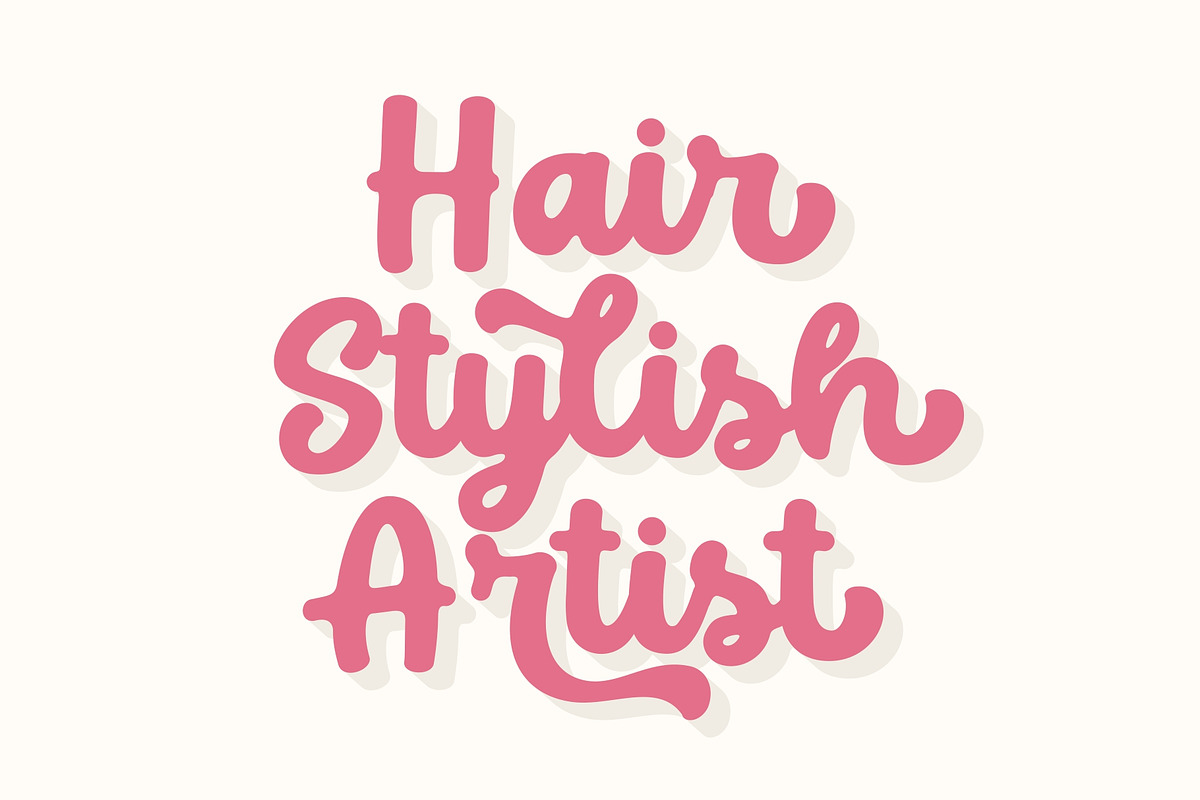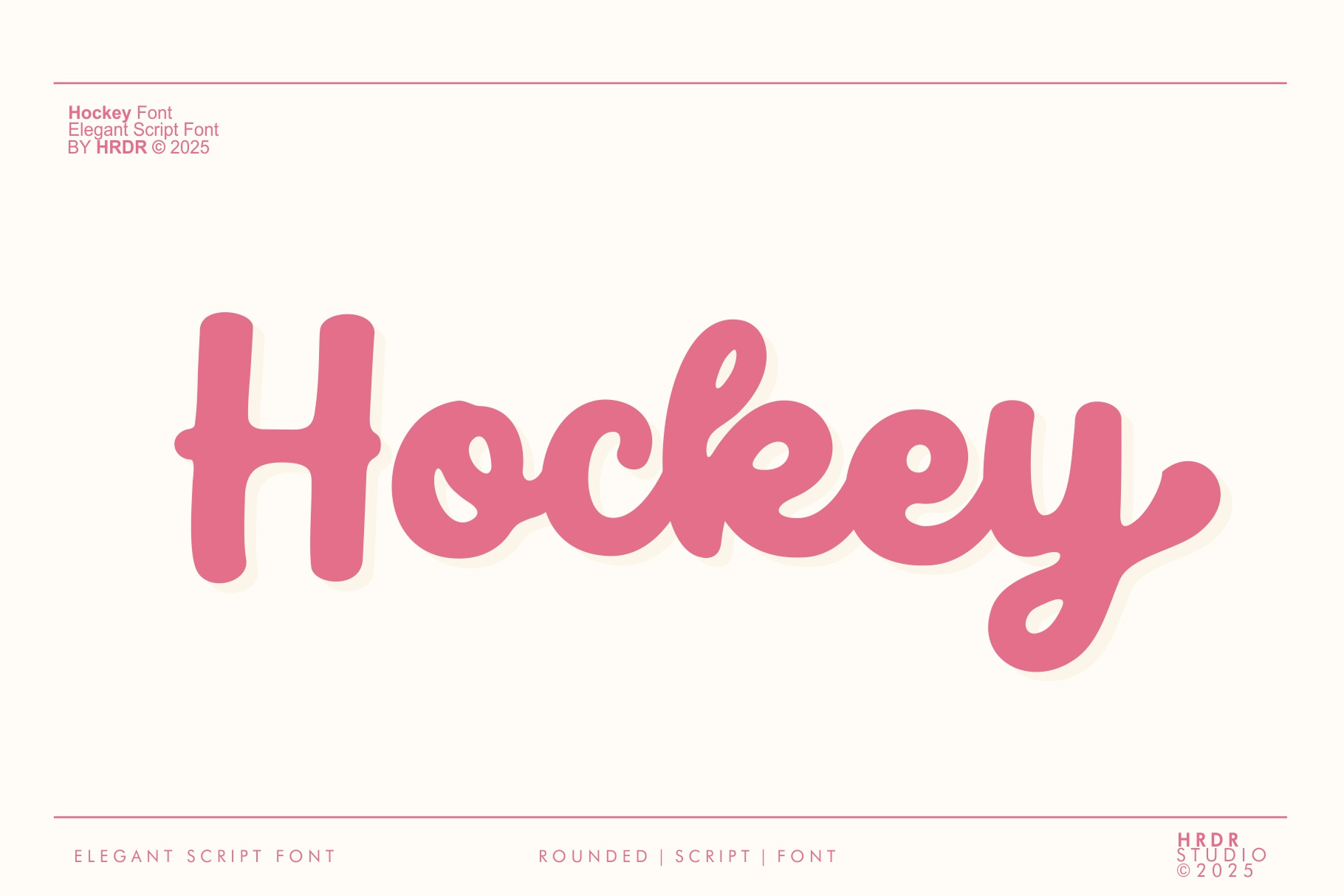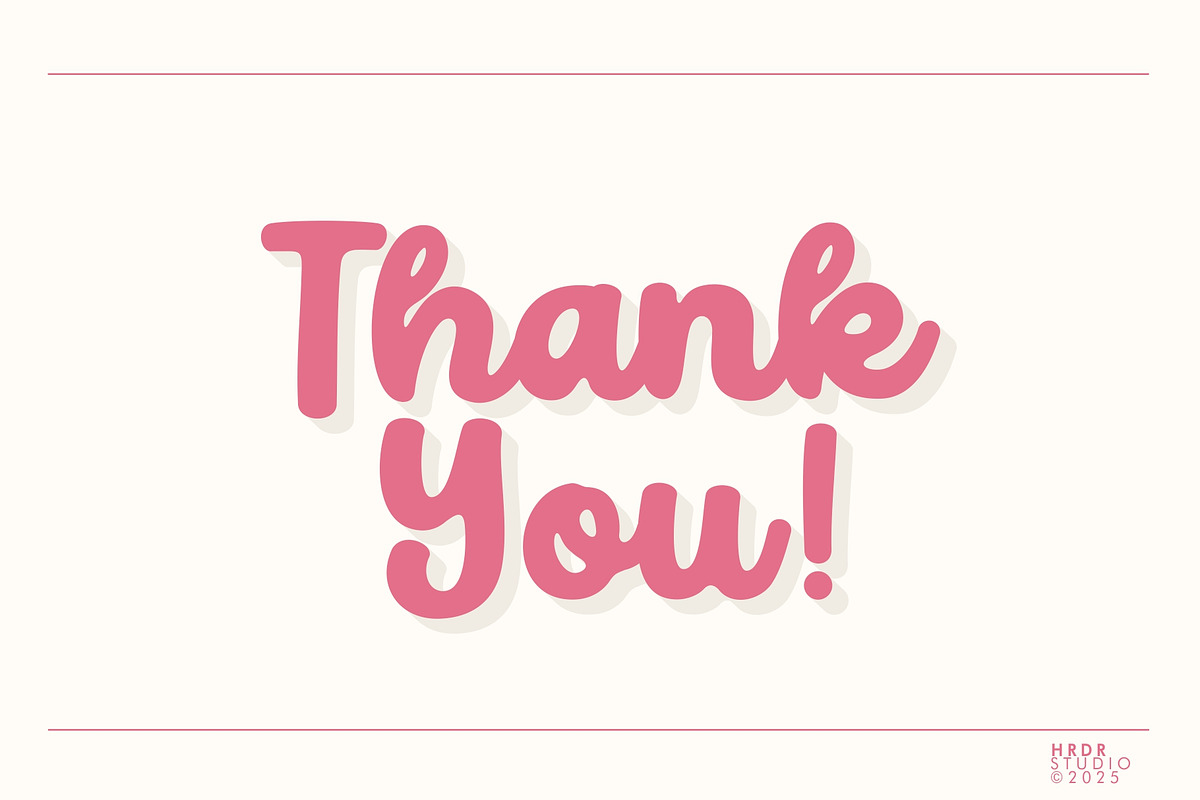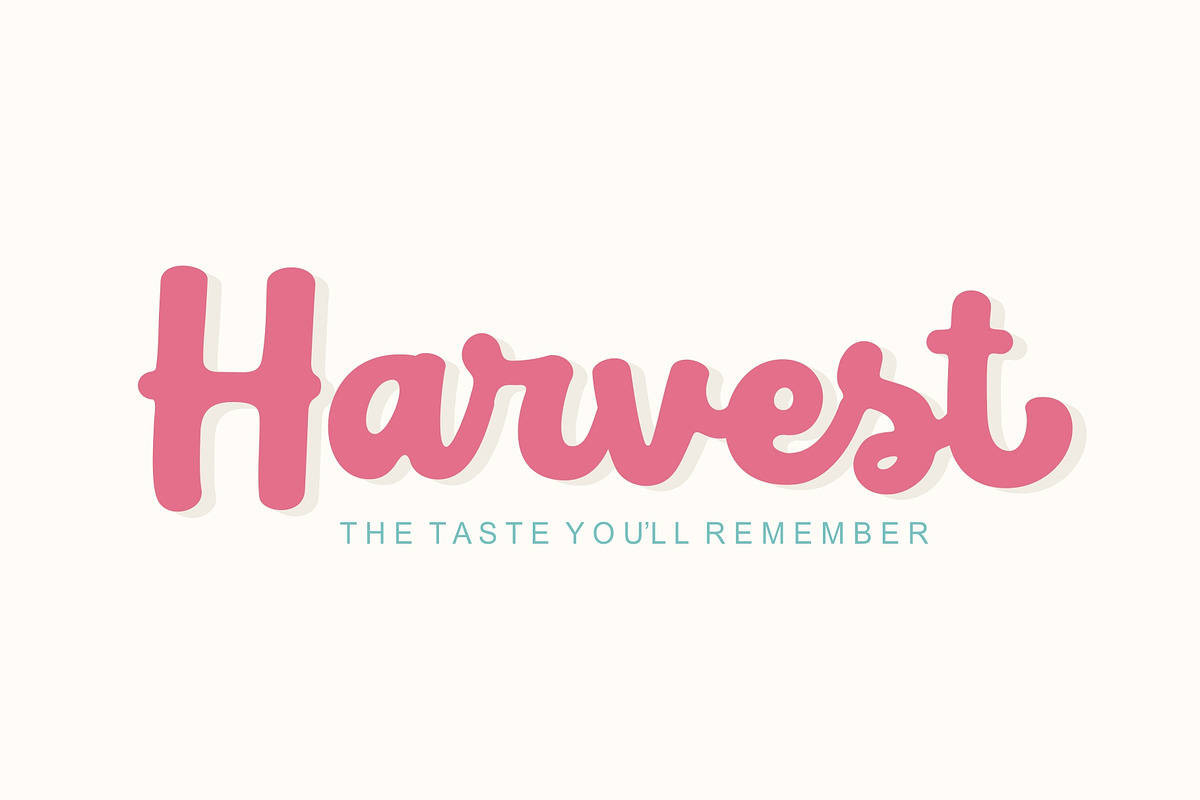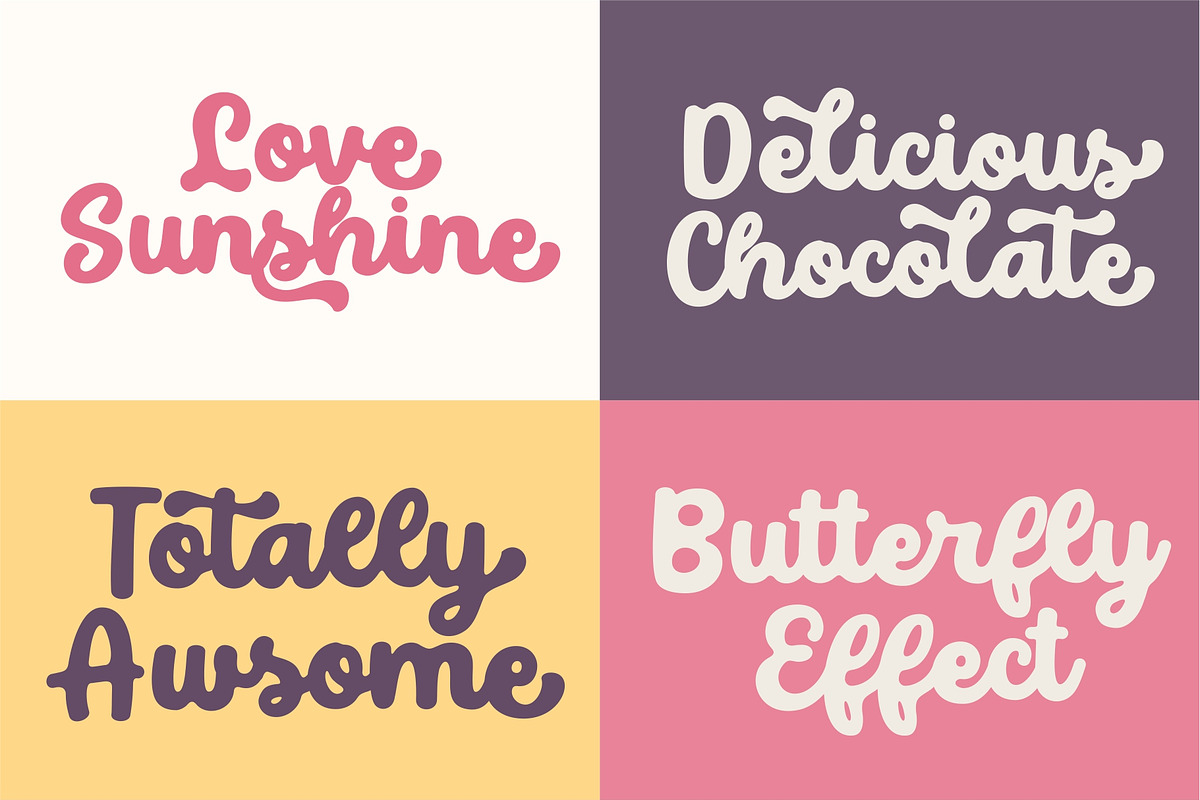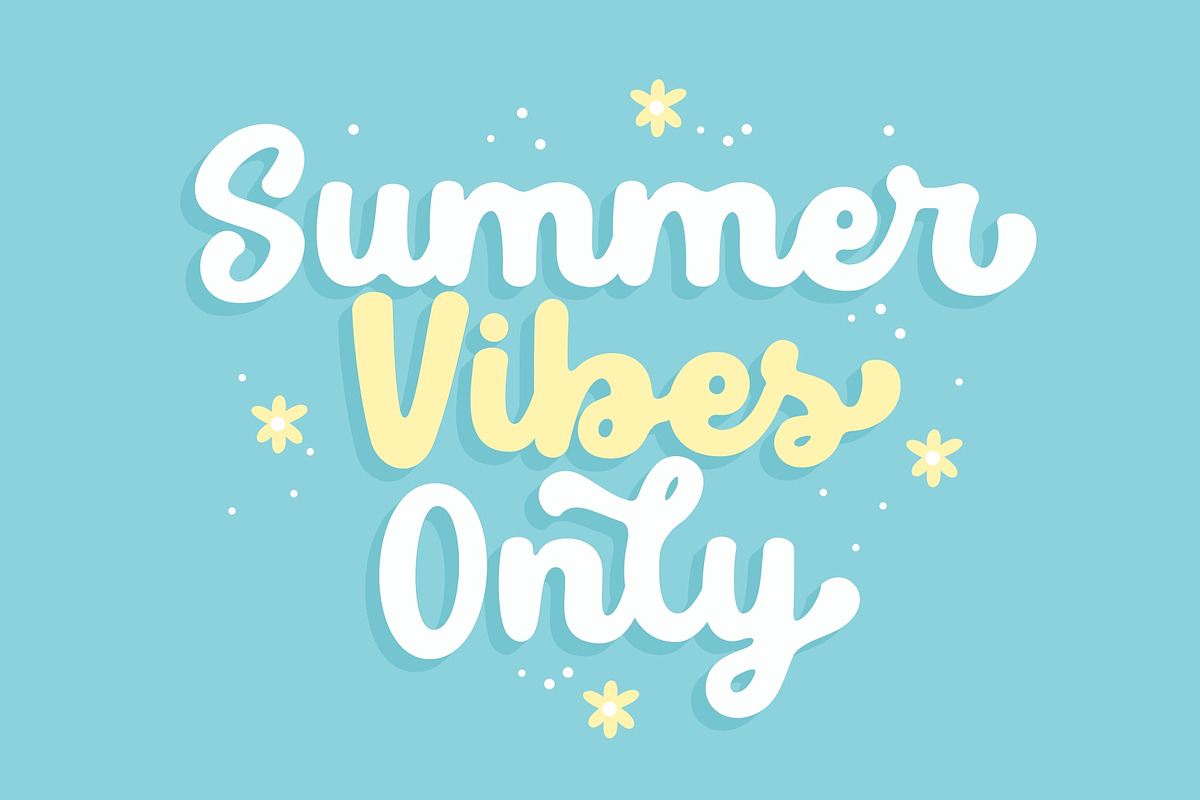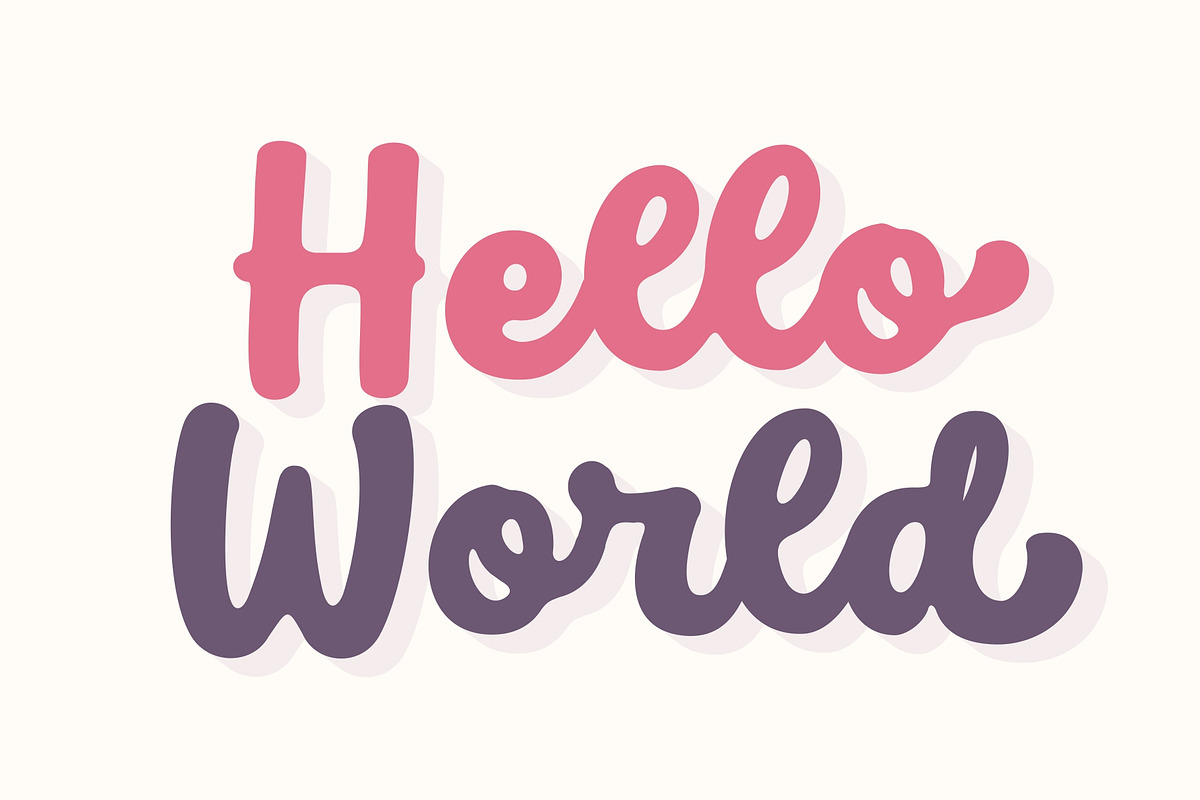
Hockey - Elegant Script Font
Hockey Font is a Elegant Script font. It's perfect for branding, wedding invitations, photography, Neon Sign, bloggers, logos, greeting cards, Logo, Quotes and more.
- numeric & Multilingual support
- Stylistic Alternates with (Ss01,Ss02,Ss03 and Ligatures)